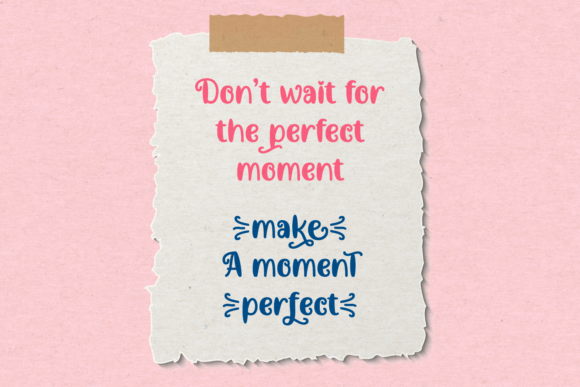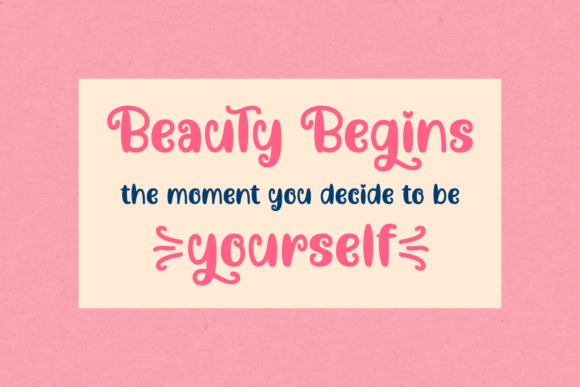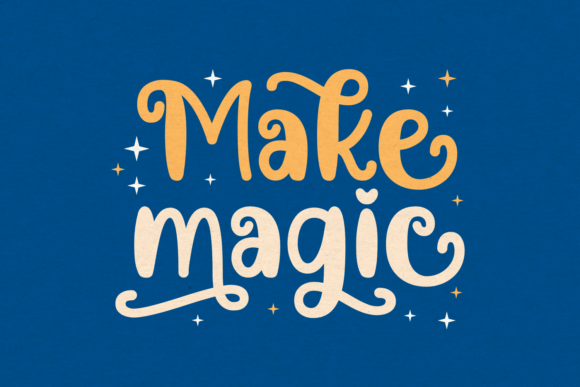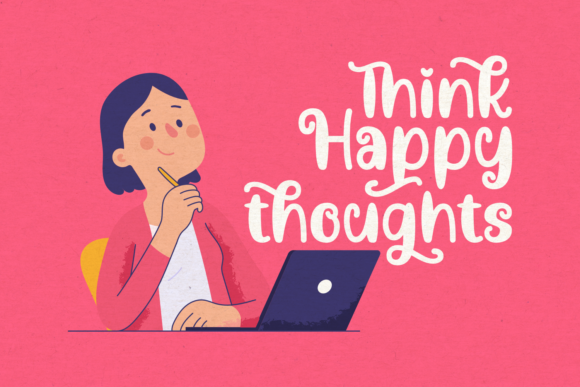
Introduction to Rakigae Font
Rakigae is a fancy and playful handwritten font, specially created for your sweetest creative projects.
It perfectly complements personal or informal designs, party invitations, love letters, journals, storybooks, and others .
Key Features of Rakigae Font
Why Choose Rakigae Font?
Rakigae Font offers exceptional quality and versatility, making it a valuable addition to your design toolkit. Whether you’re creating for personal projects or commercial use, Rakigae Font delivers professional results.